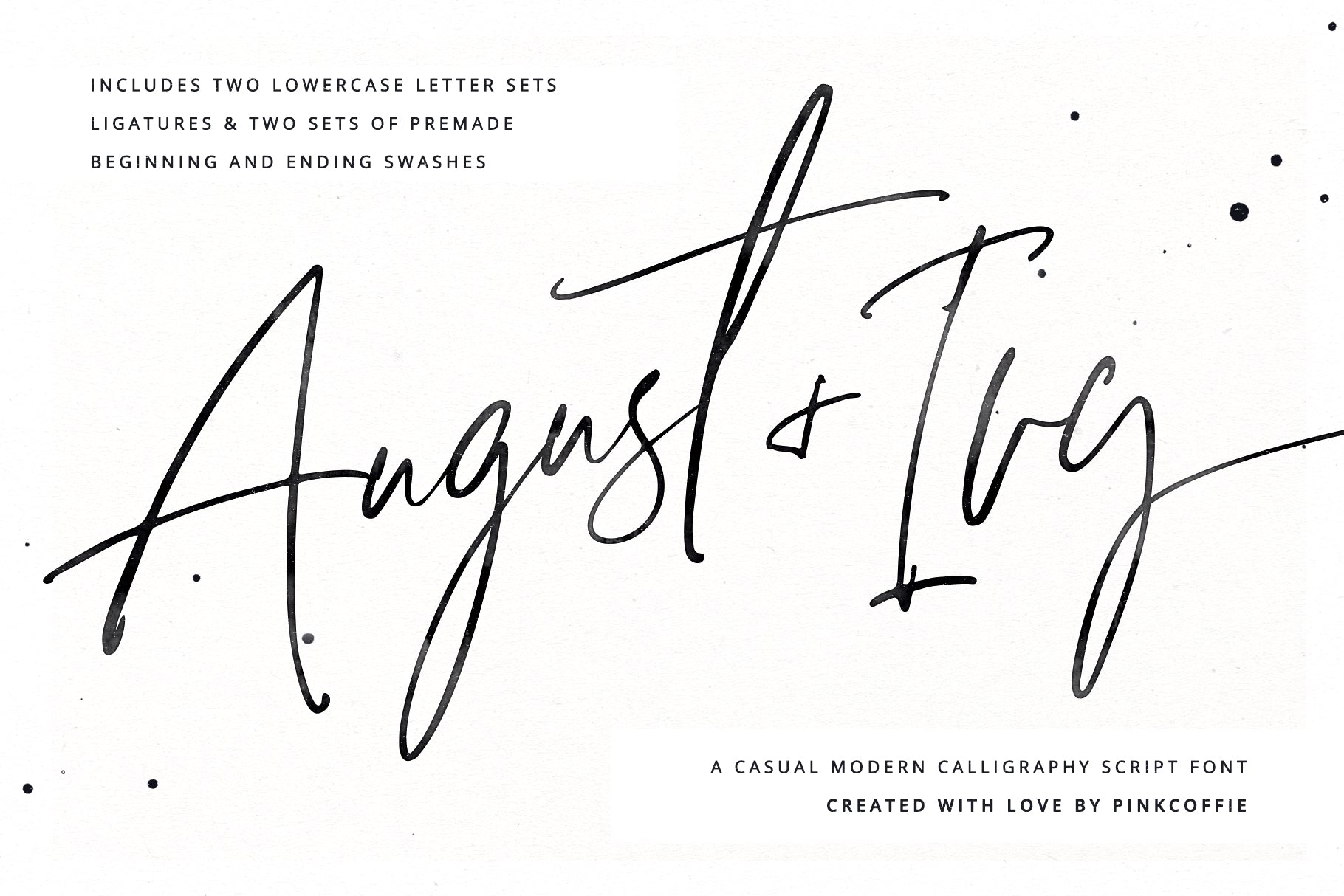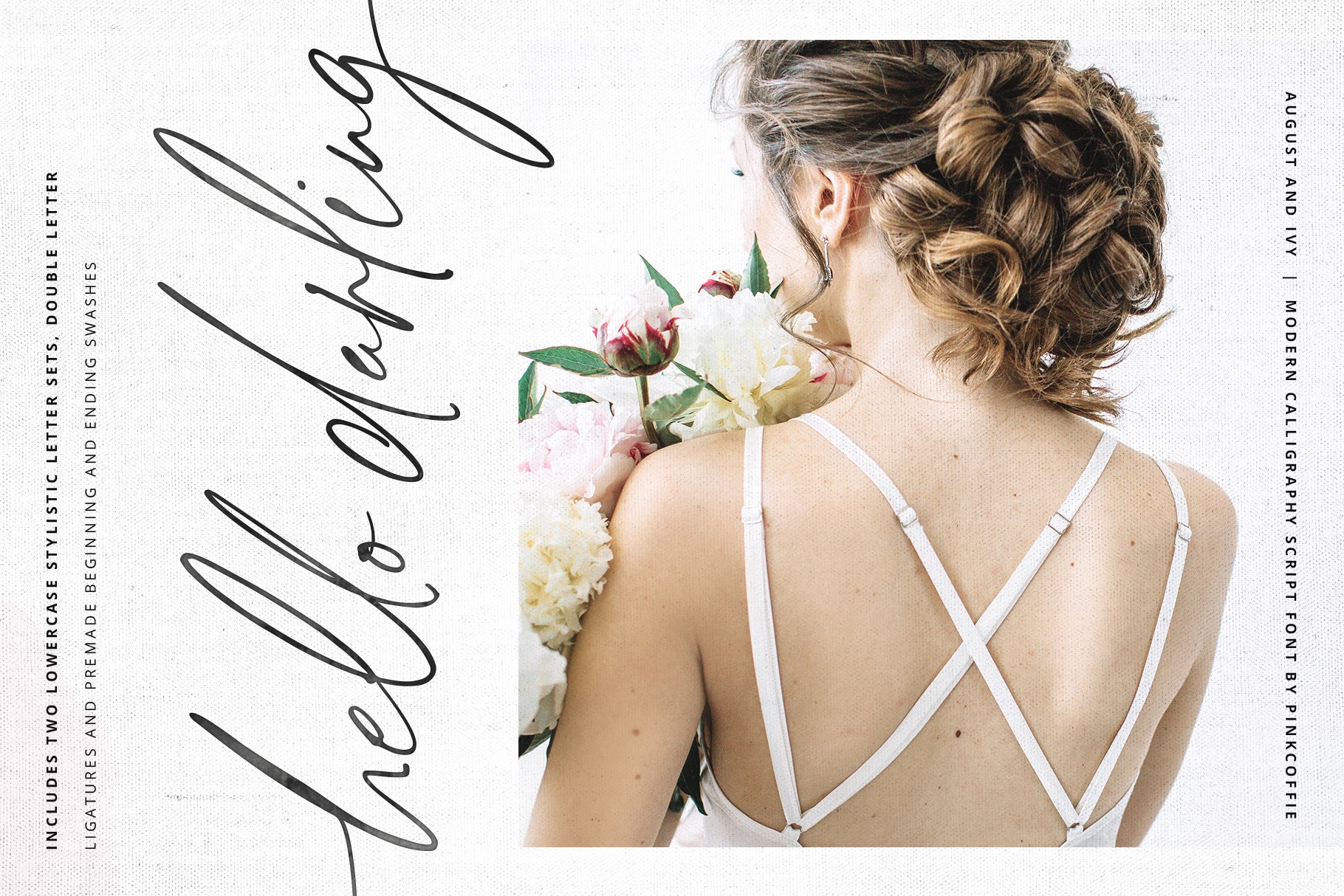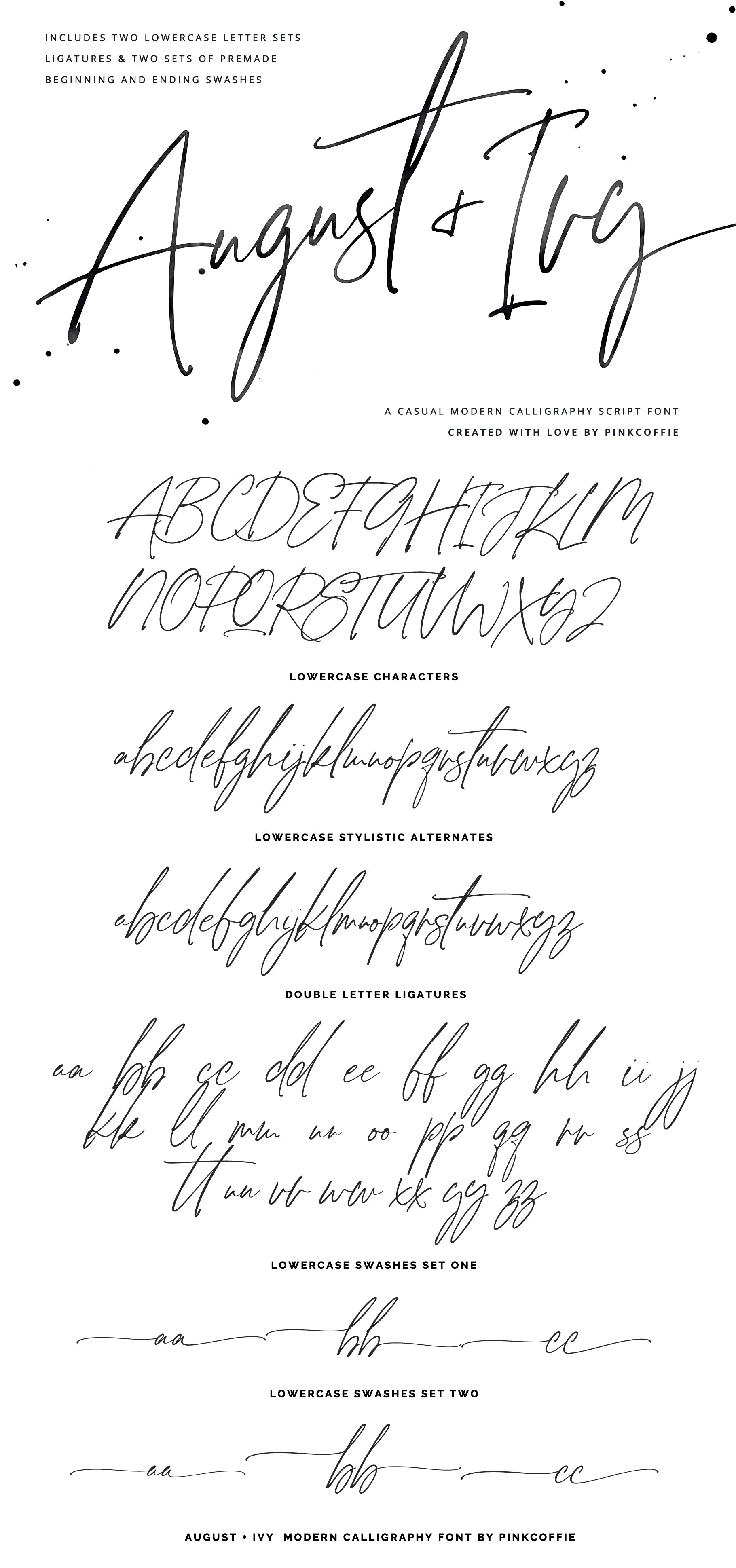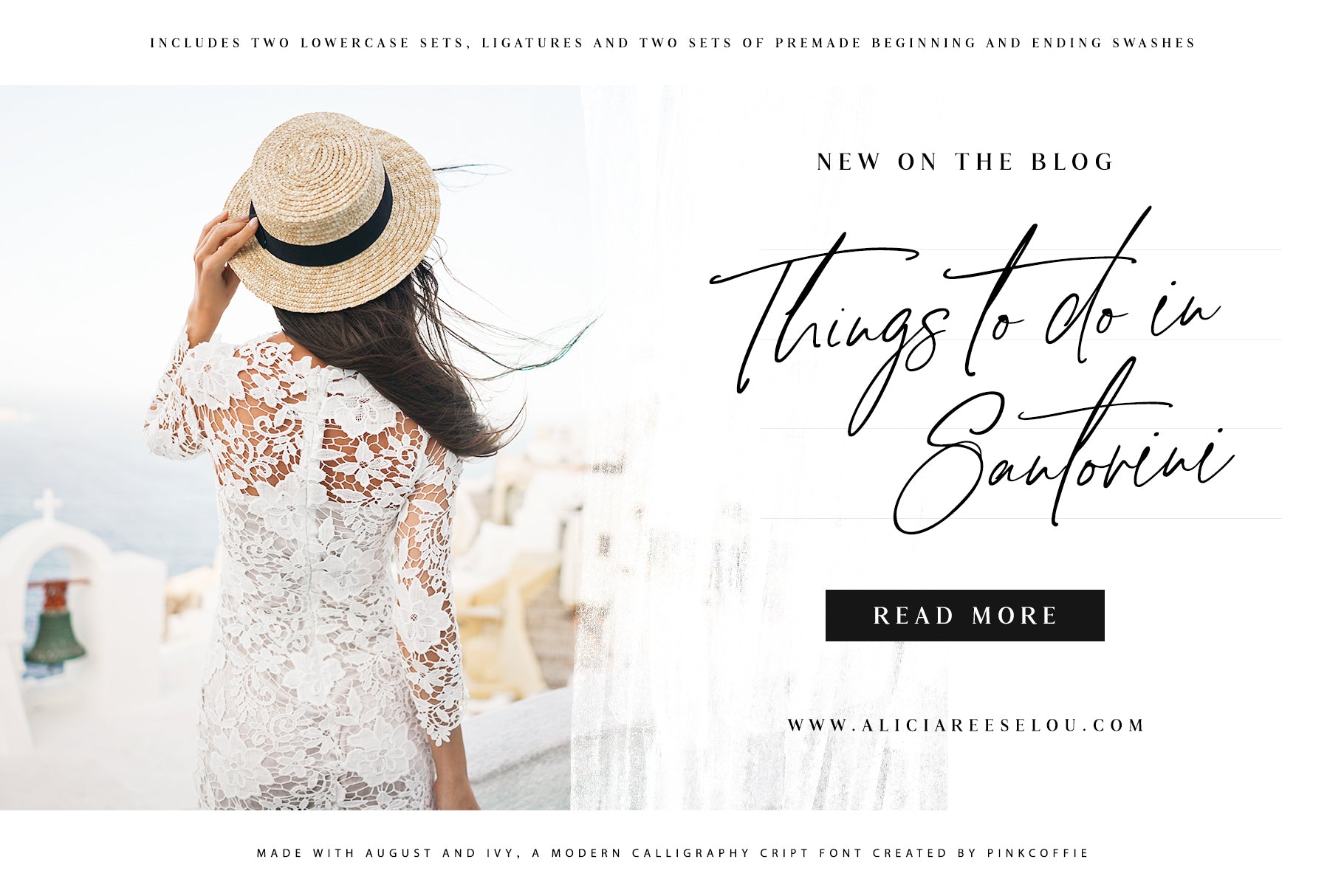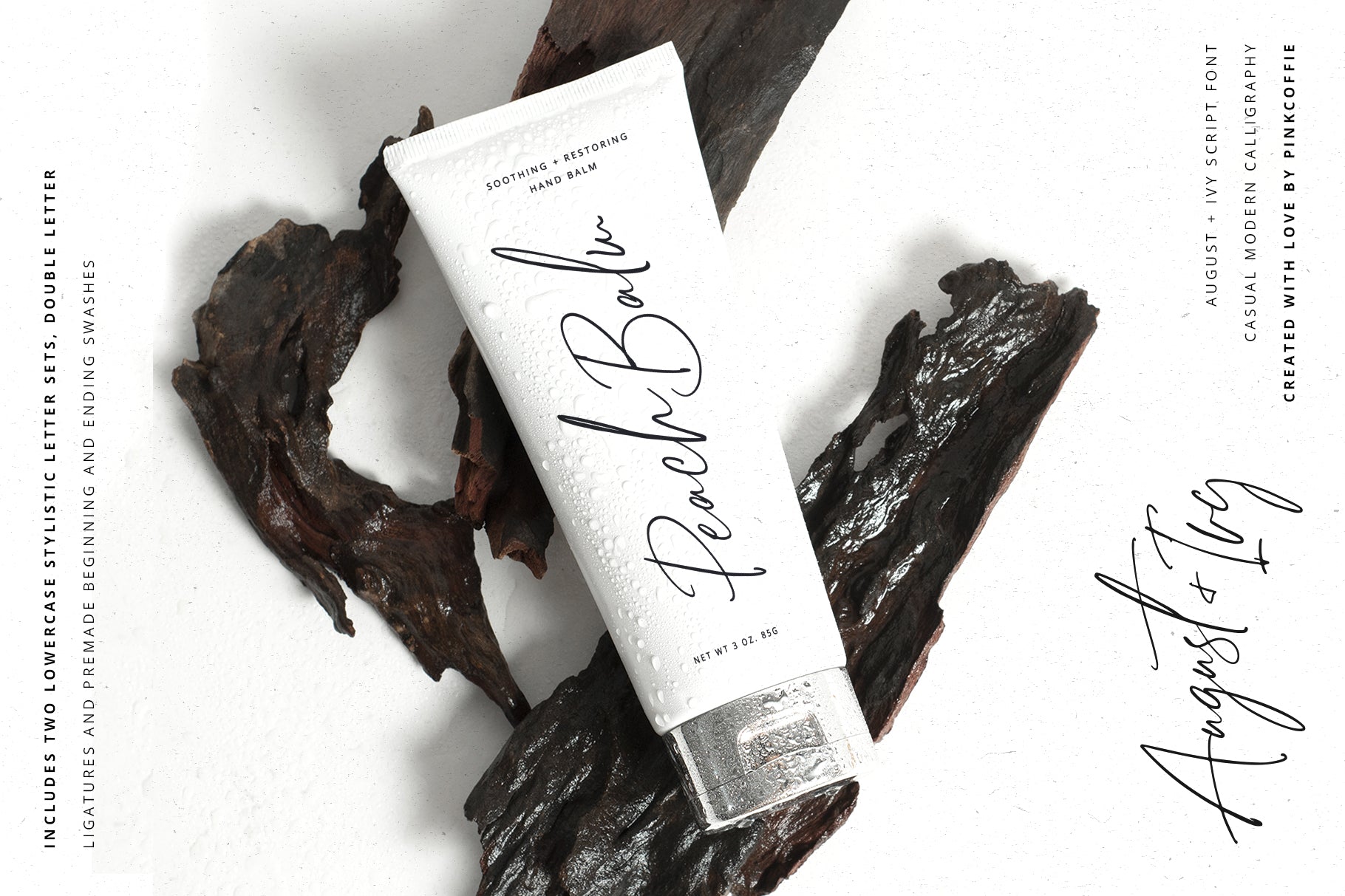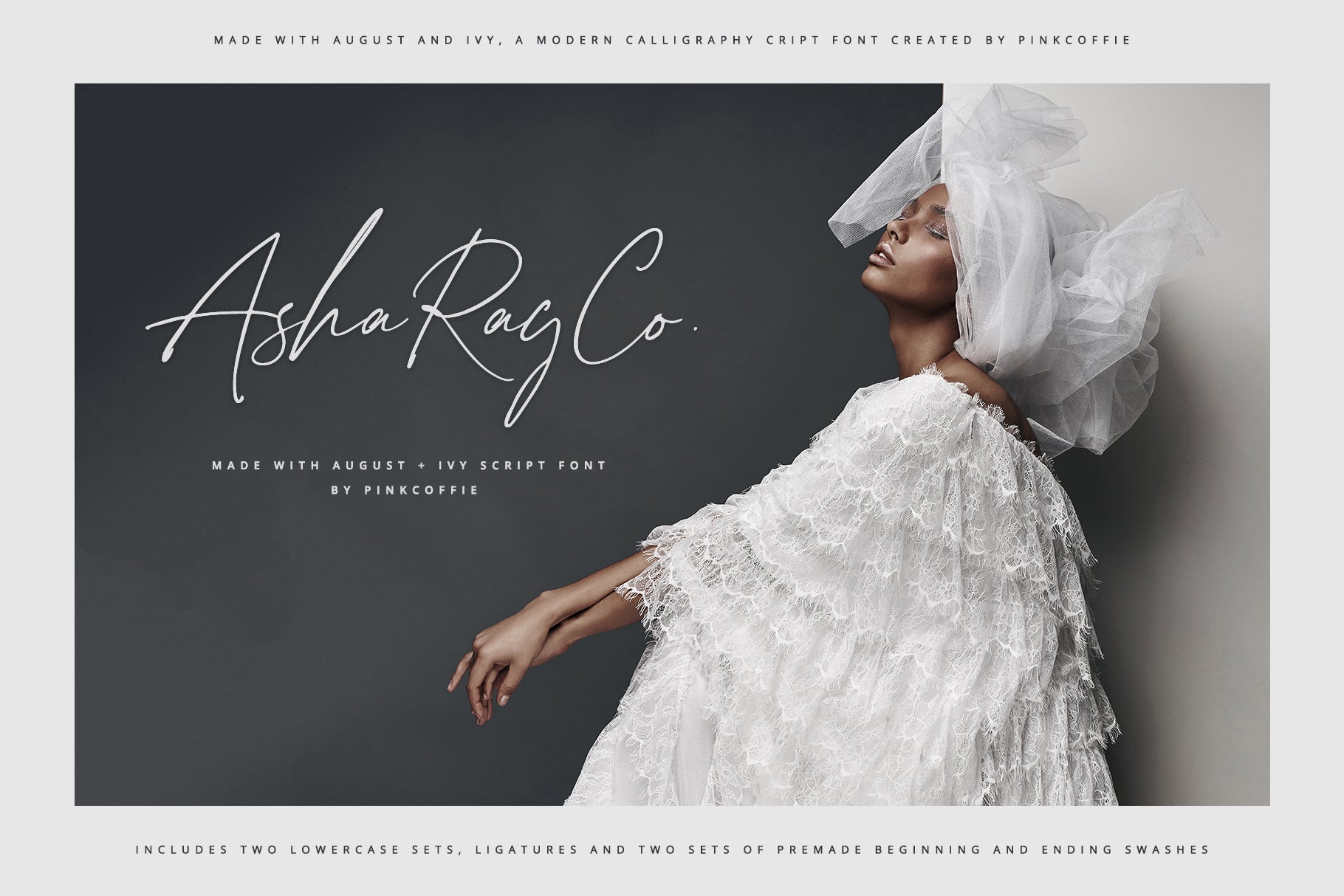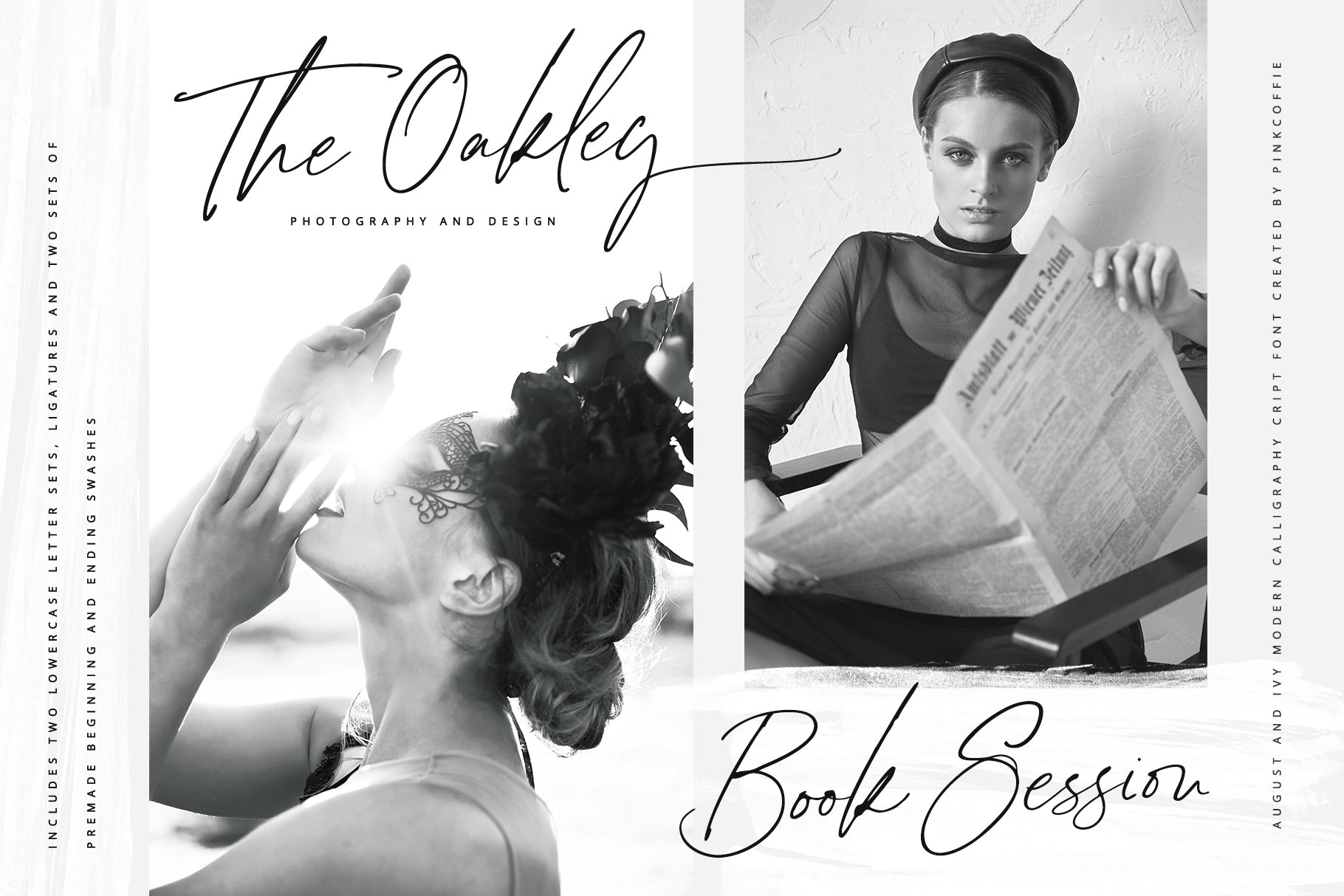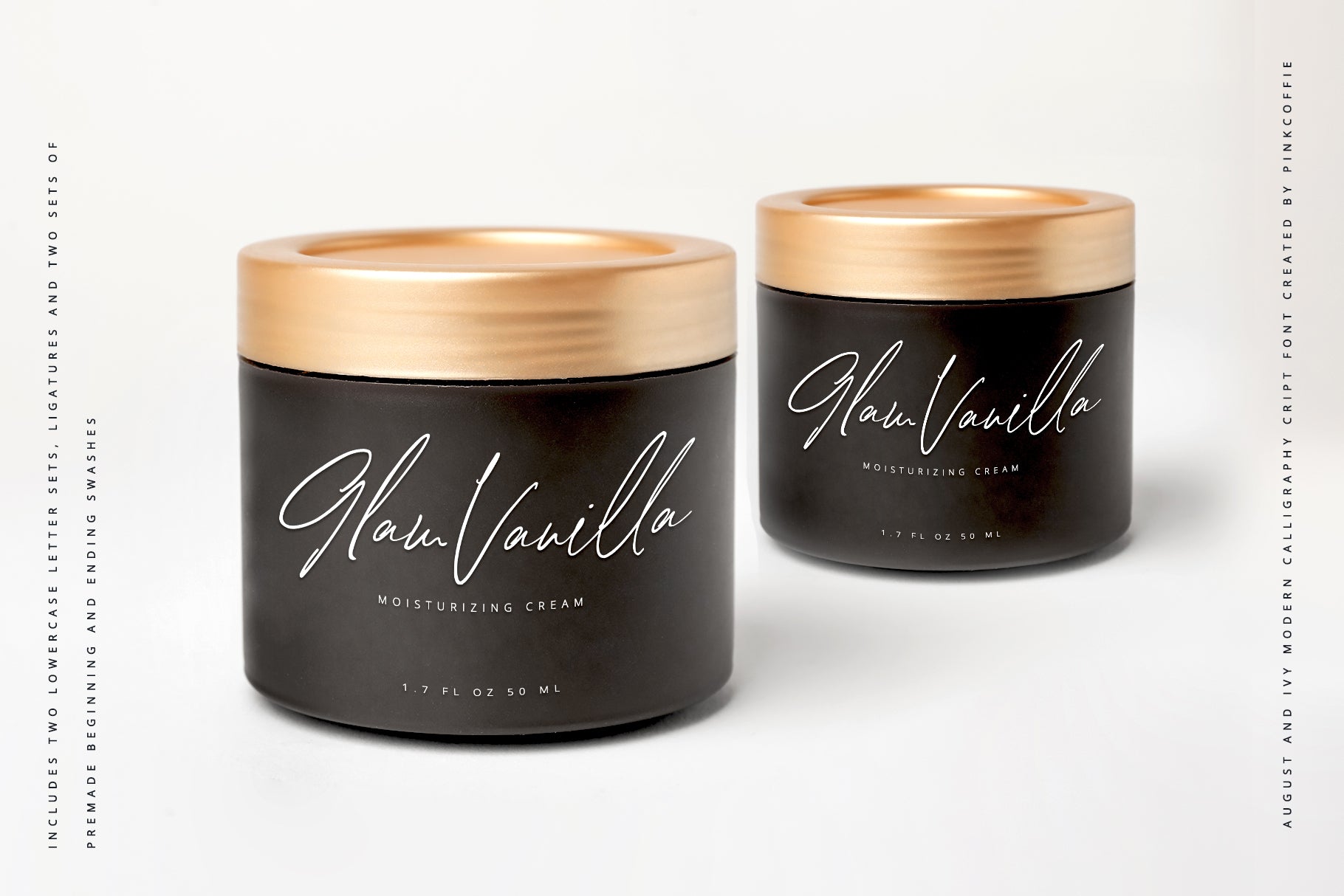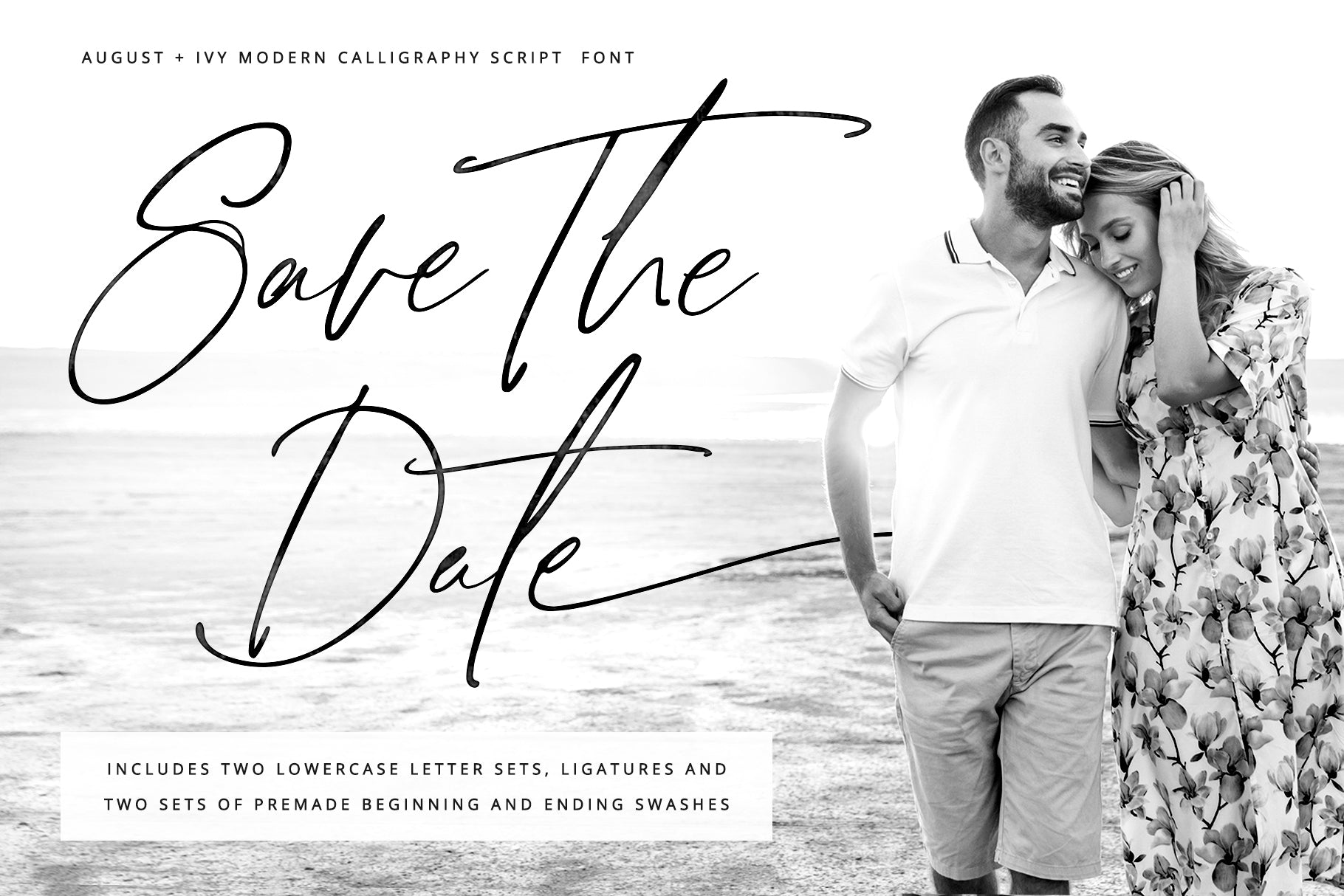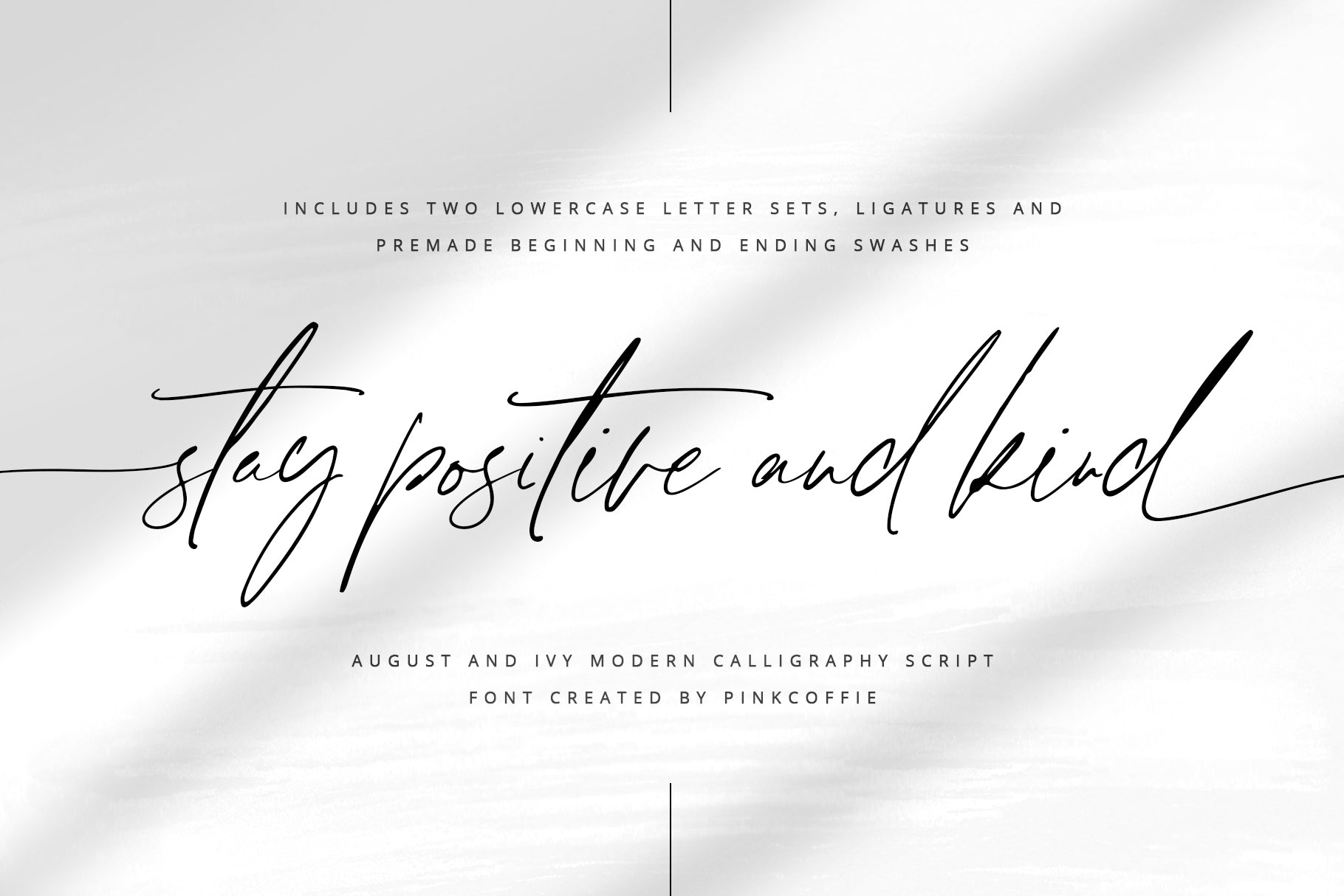
August + Ivy
Say hello to August and Ivy, a casual chic script font featuring two lowercase letter sets, automatic double-letter ligatures, two sets of premade beginning and ending lowercase swashes to mix and match, and multilingual support.
This stylish modern calligraphy script font is versatile enough for both print & web and can be used for a variety of products such as wedding stationery, bachelorette and birthday invitations, seating charts, websites, prints, branding, logos, apparel, packaging, social media templates, planners, printables, baby shower templates and so much more!